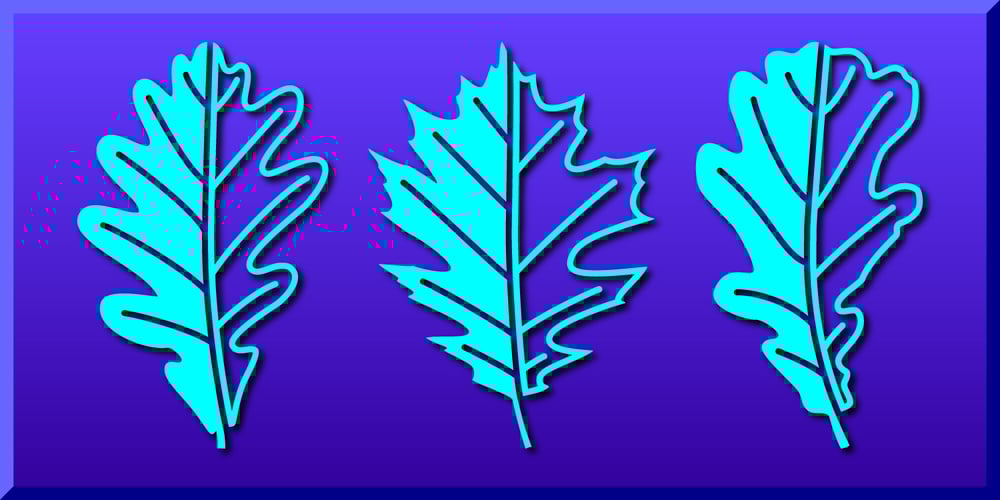
Mighty Oaks
Mighty Oaks font
Mighty Oaks Font Family was designed by Gerald Gallo and published by Gerald Gallo. Mighty Oaks contains 1 styles and family package options. Mighty Oaks is a collection of stylized oak leaves. There are 47 oak leaves located under the character set keys. There is a flopped version of each leaf located under the shift+character key.